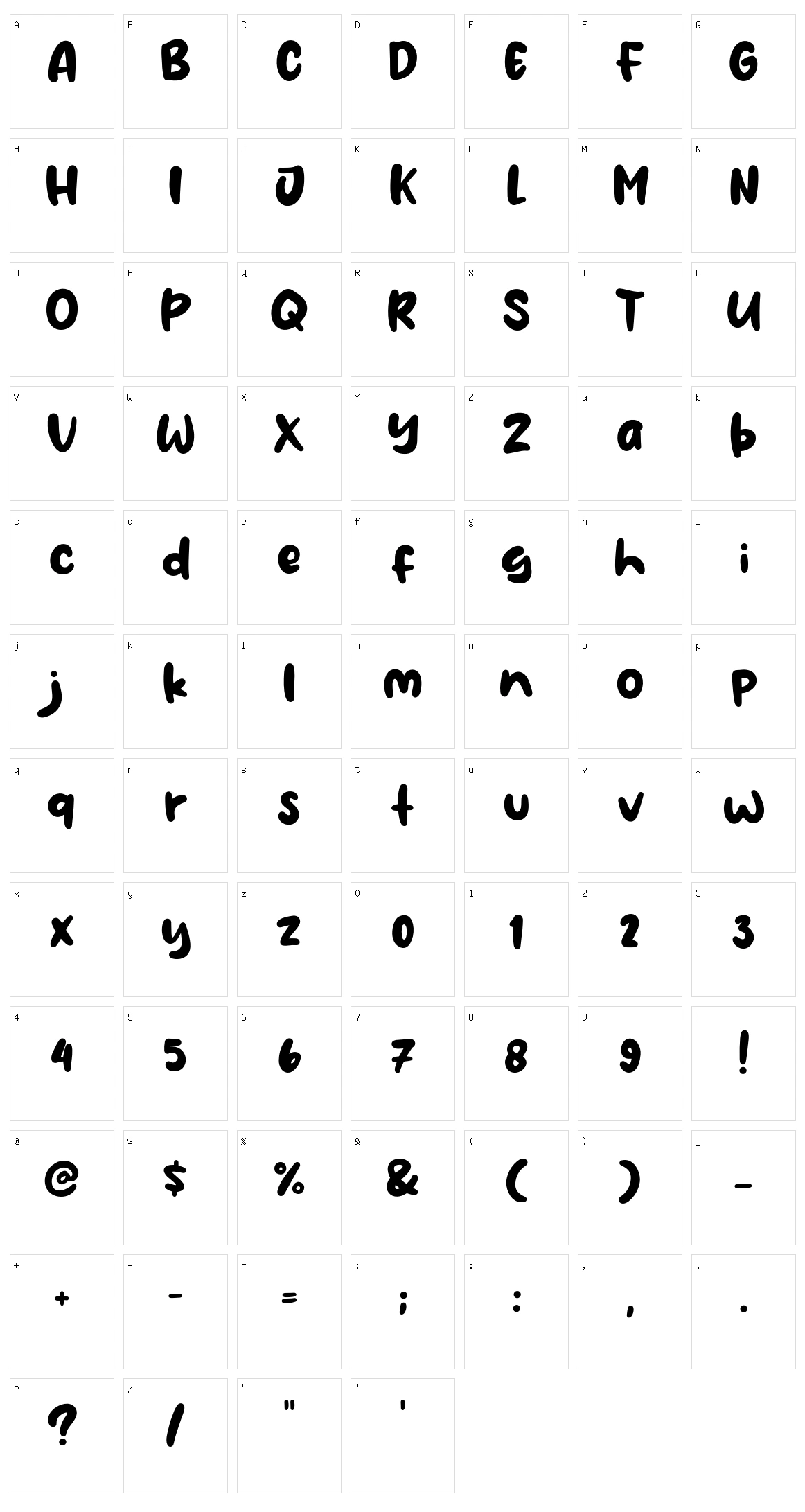
The free font Coffee Extra is carefully designed by Khurasan, showcasing a thoughtful balance of creativity and usability and falls under the Cartoon font style. When you download the ZIP file, it contains only 310.11 KB of font files, making it lightweight and quick to download. Please review the license details below to understand permitted usage and distribution rights. If license information is not available, we recommend using this font for personal projects only or contacting the author directly for commercial usage permissions.